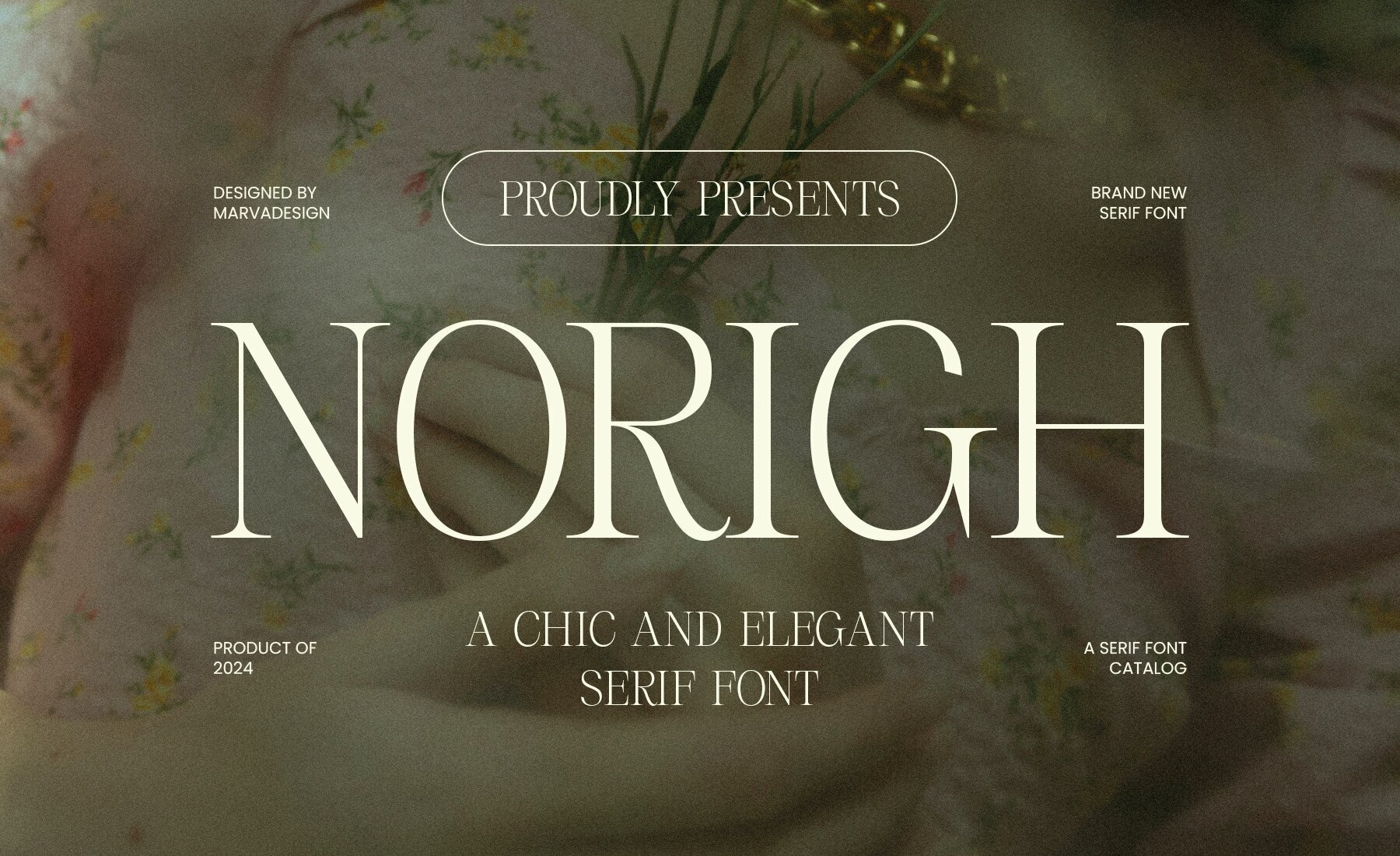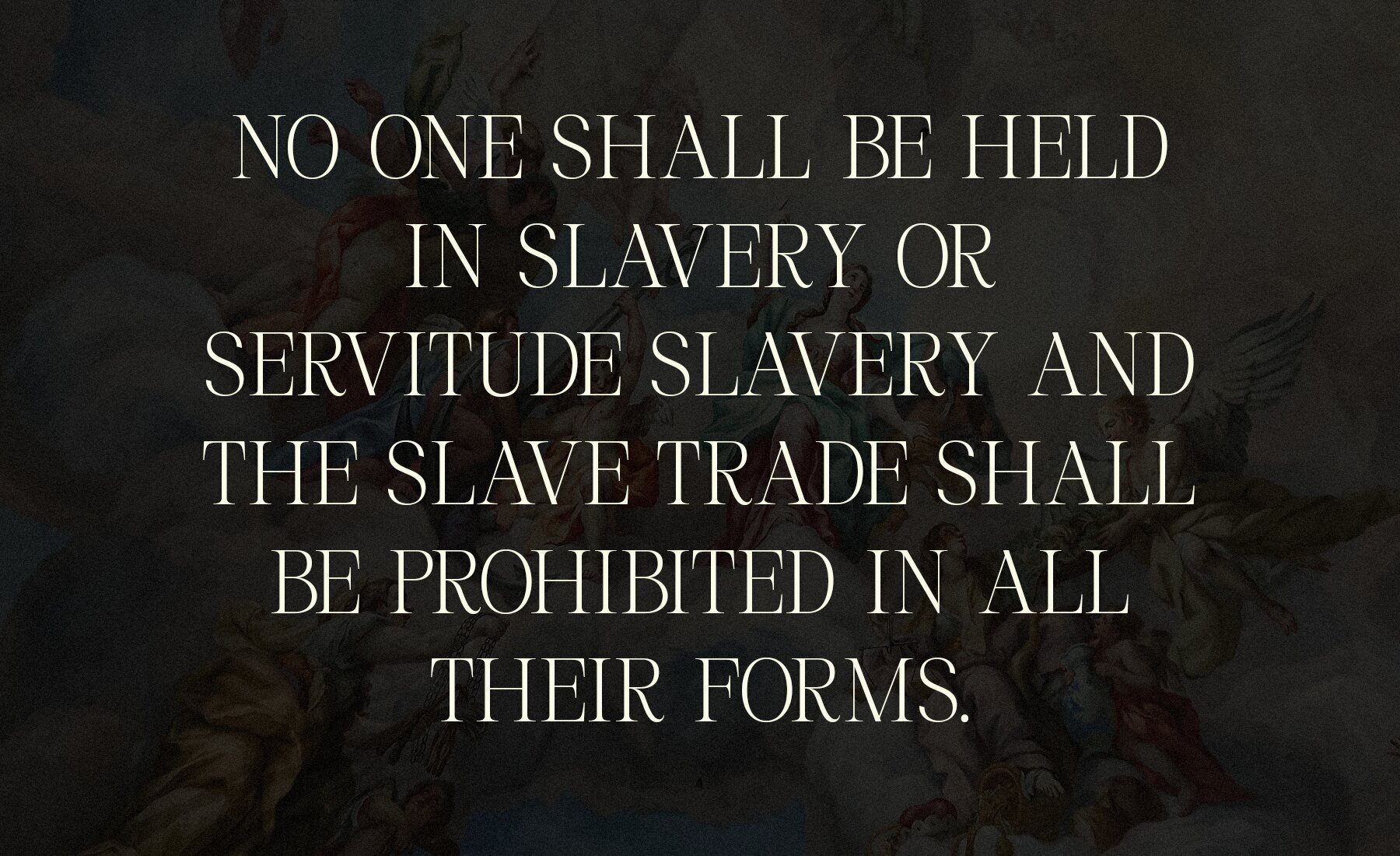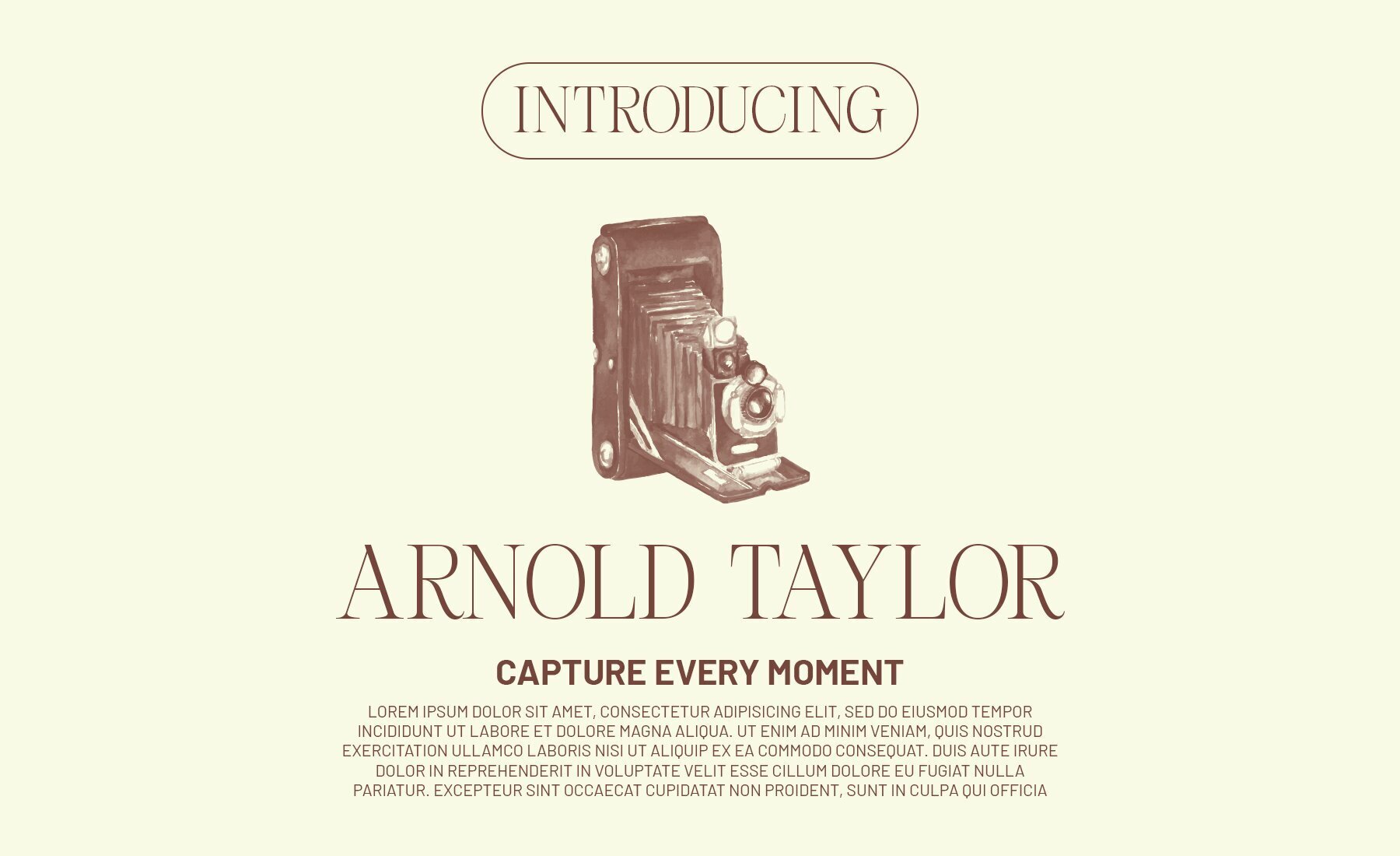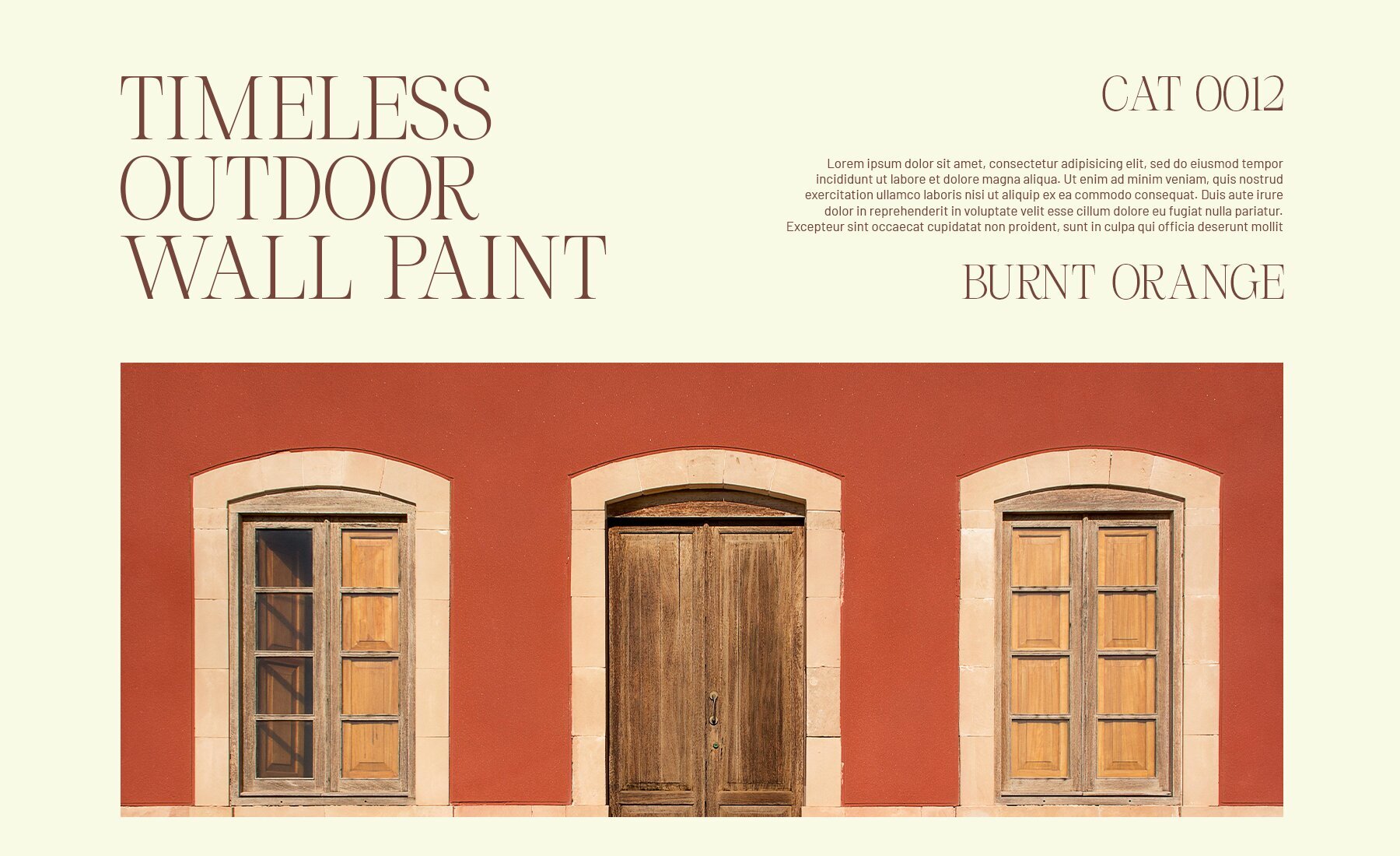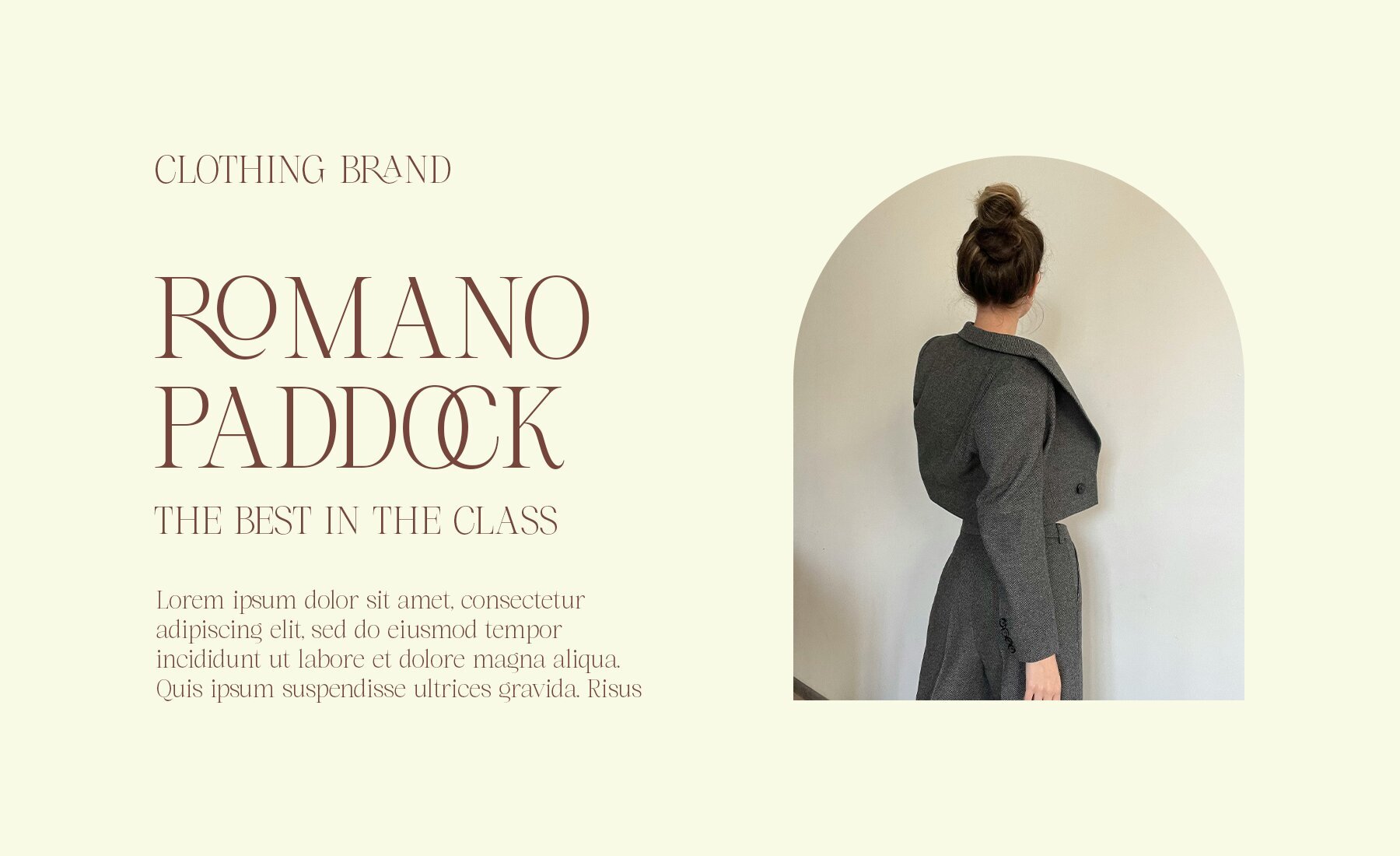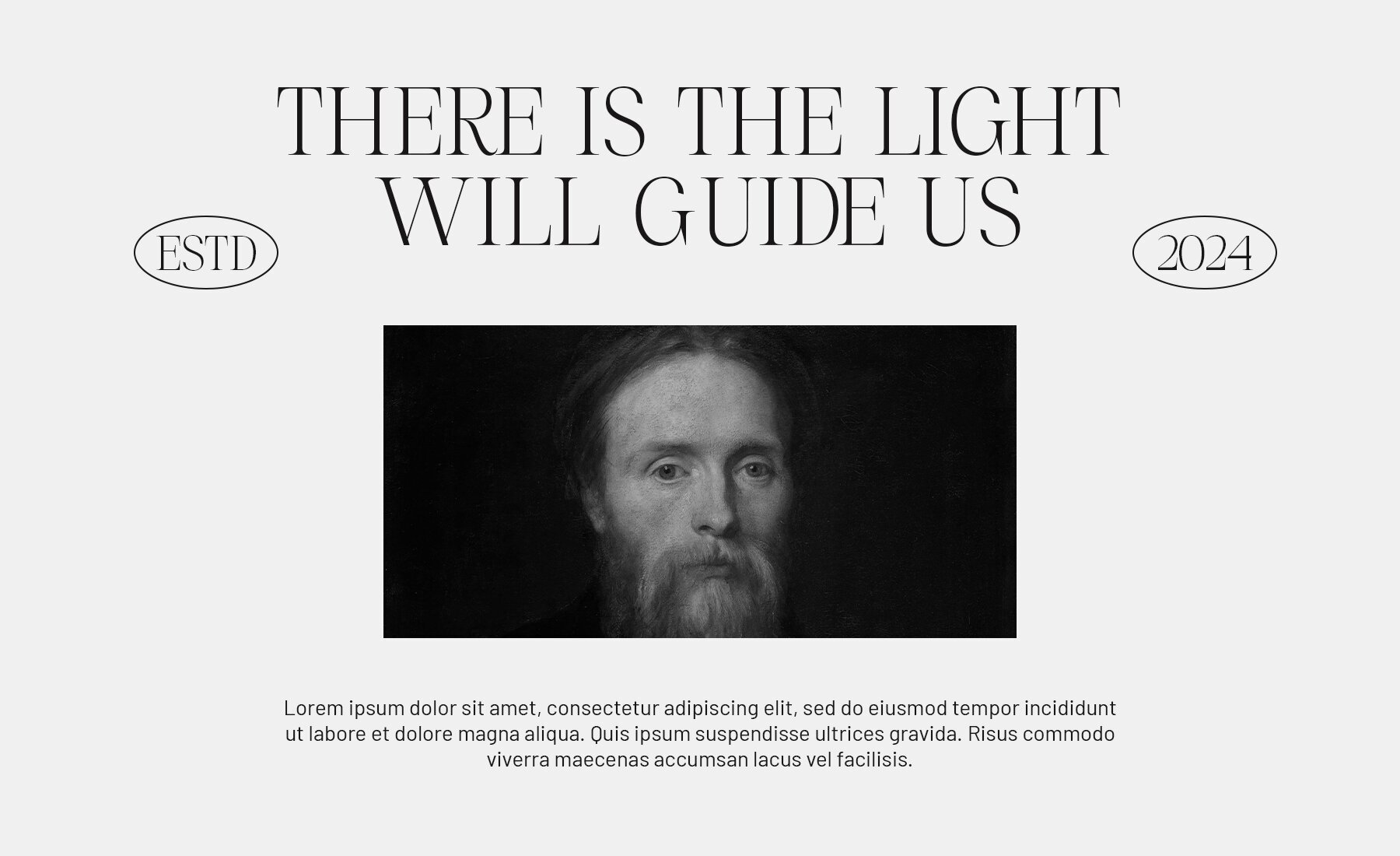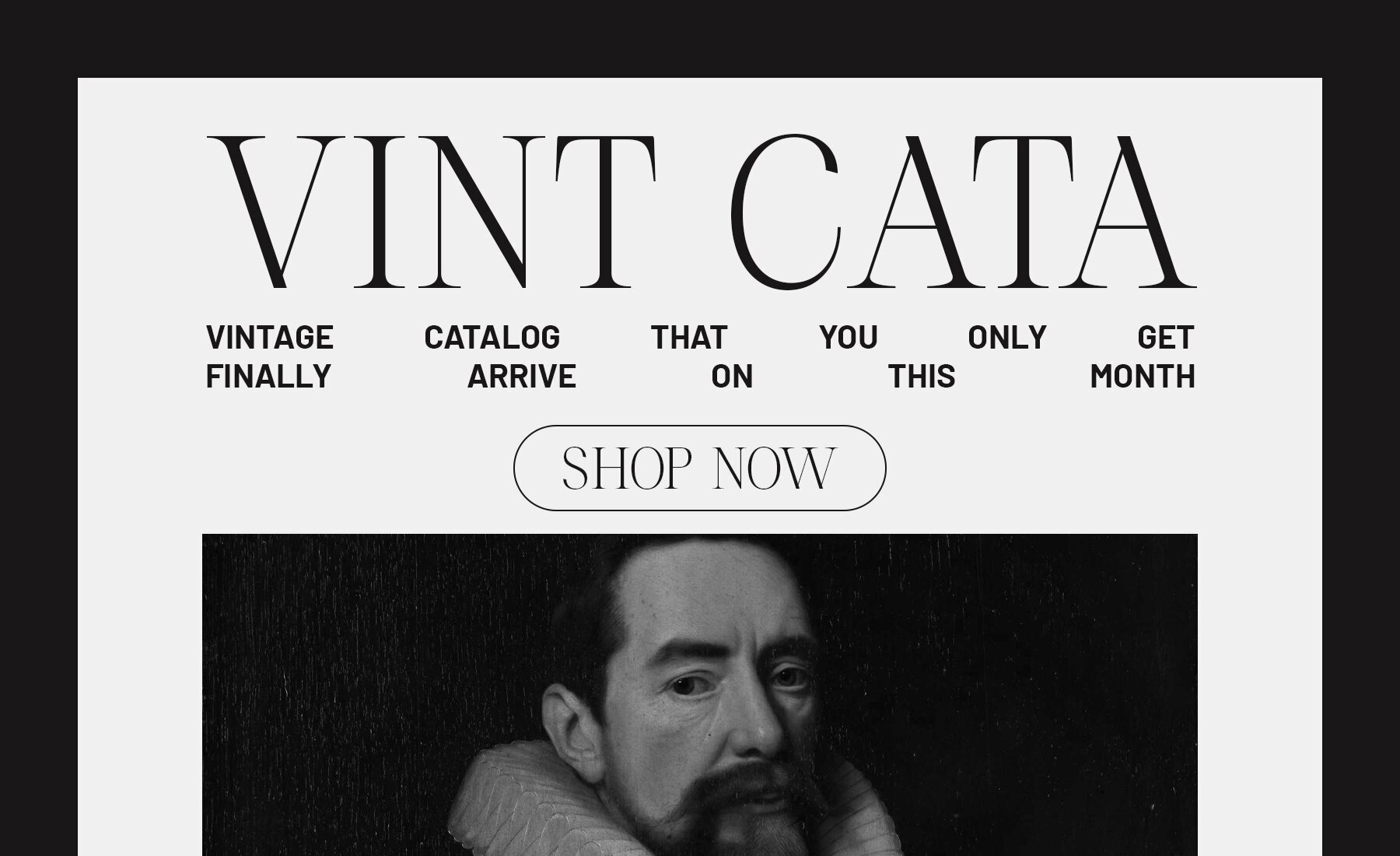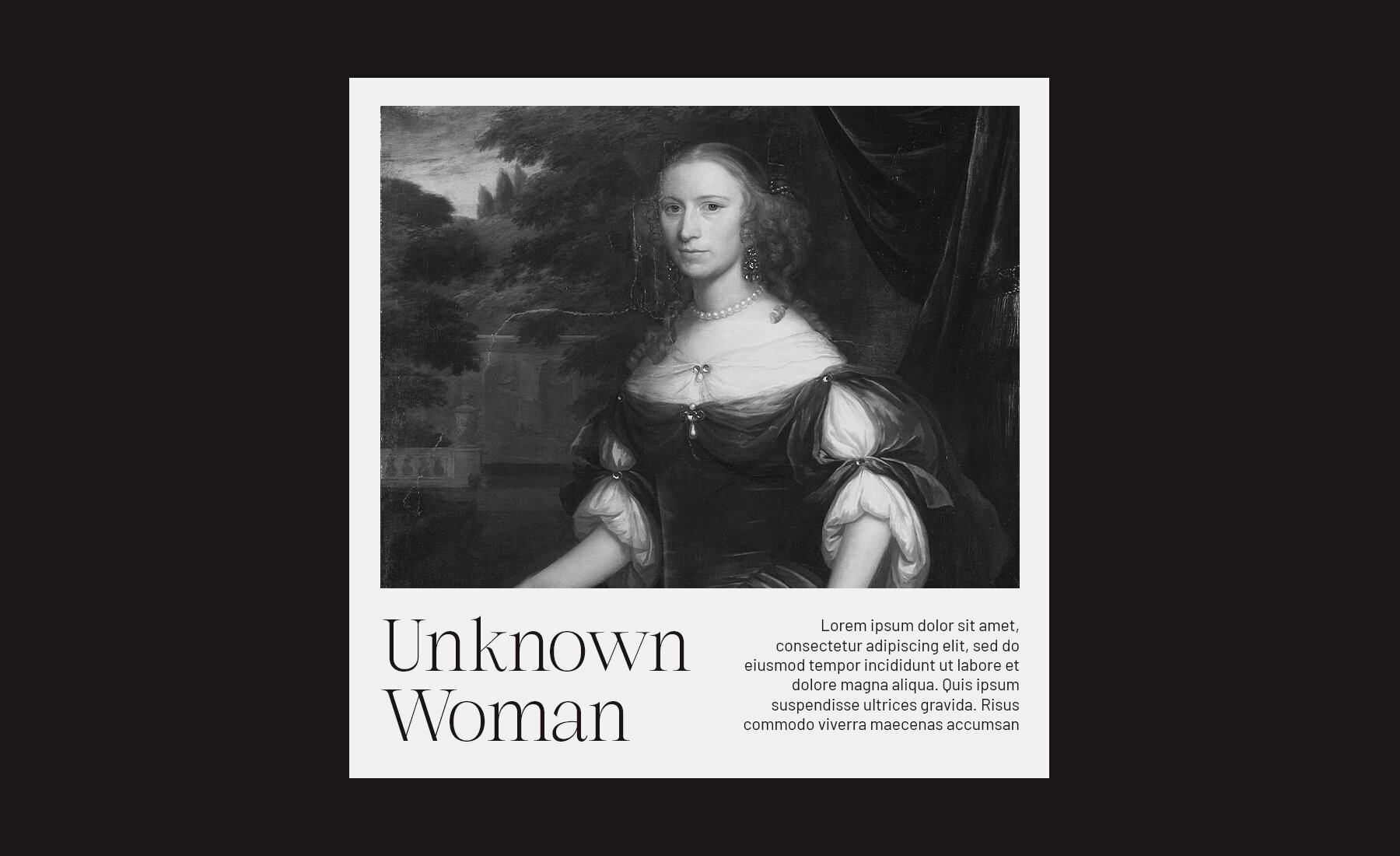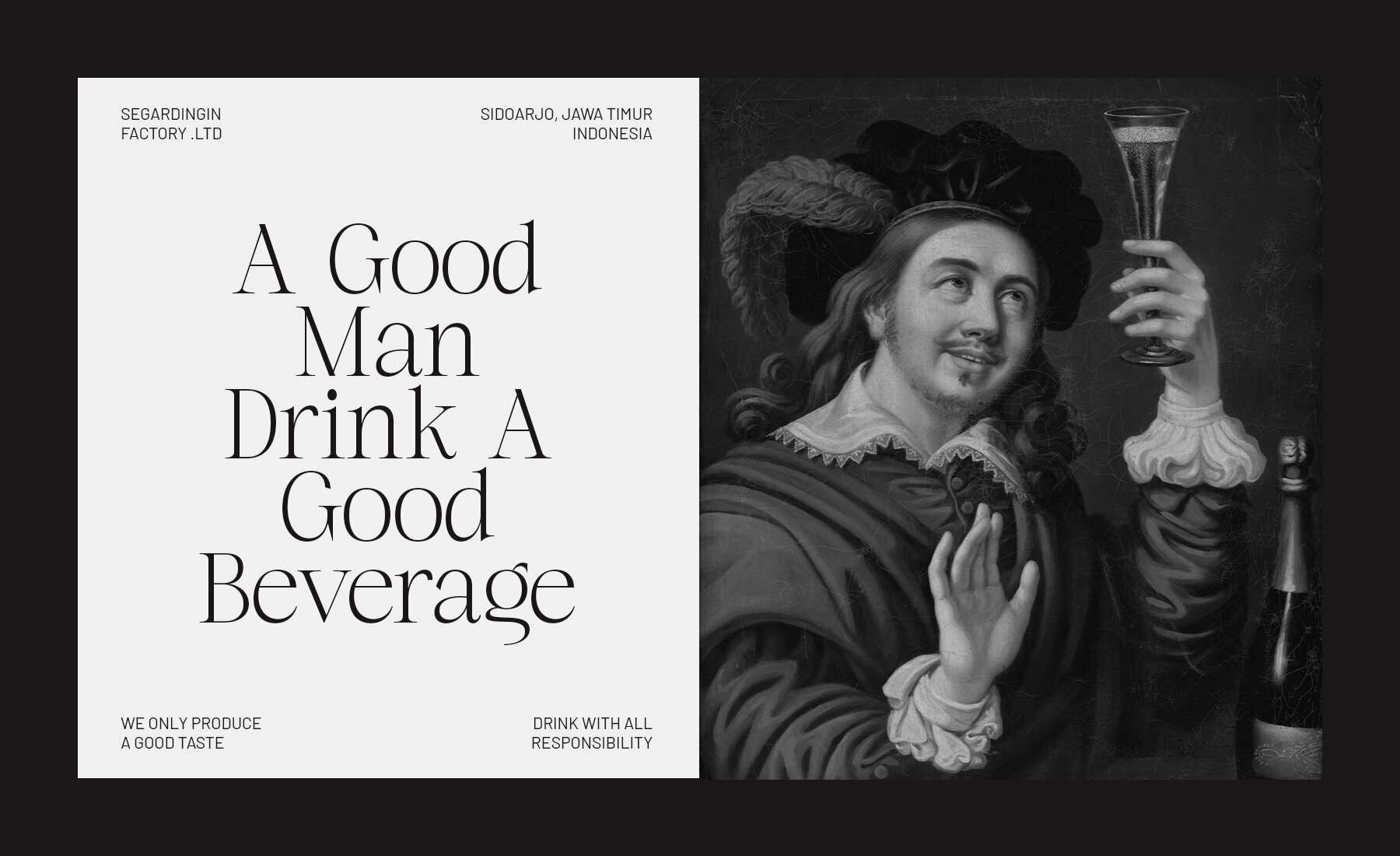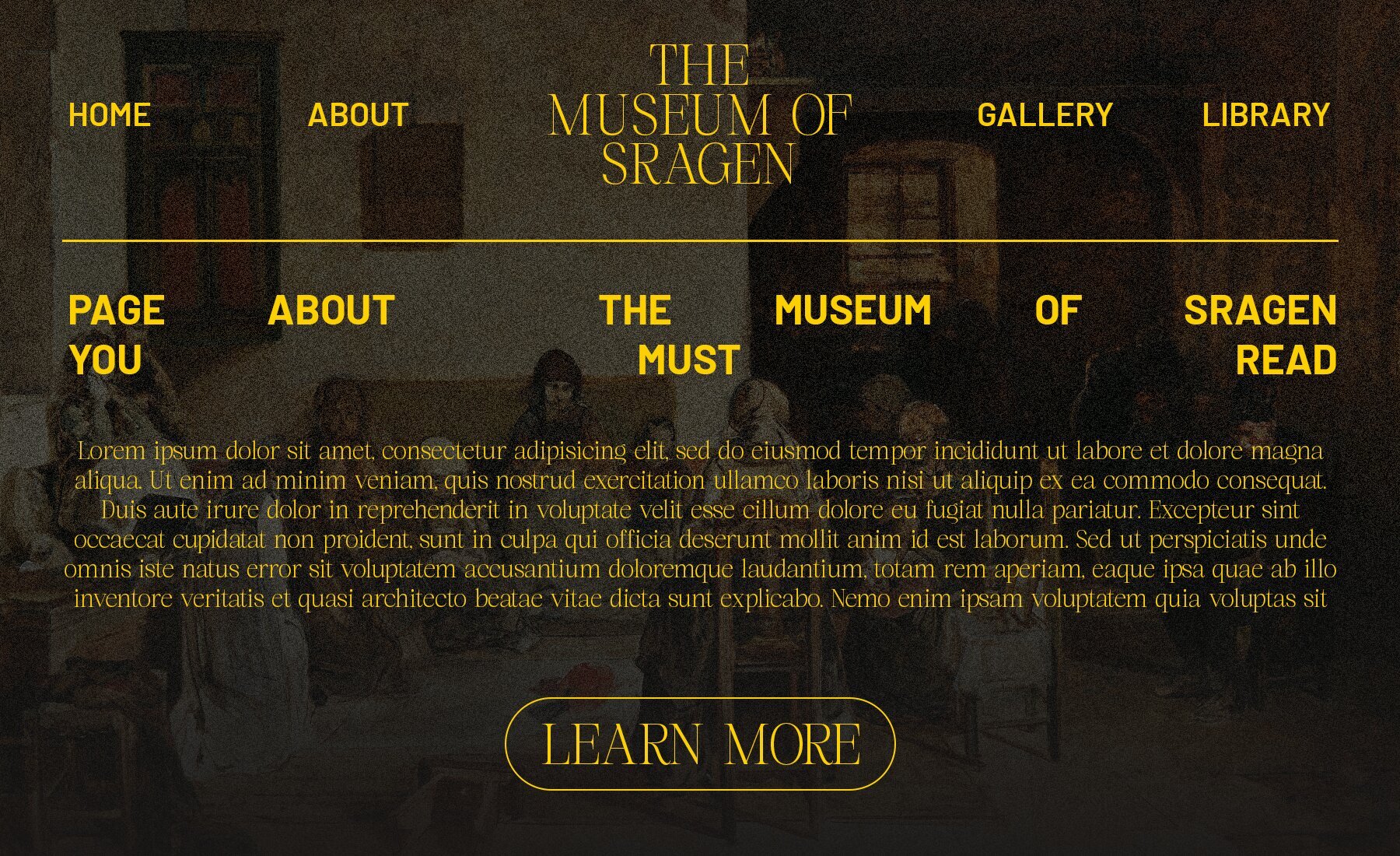
Norigh Font
Norigh Regular
Norigh is an elegant serif typeface that combines luxury with minimalist sophistication. Crafted with refined, clean lines, it exudes a polished appearance that balances grace with subtlety. Norigh's touch of modernity makes it an excellent choice for high-end branding, editorial design, and any creative project where elegance is essential.
This typeface includes a selection of carefully crafted ligatures that offer seamless character transitions. These ligatures enrich the typography, adding a unique and tasteful flair that complements its minimalist aesthetic. Norigh's versatile design and understated elegance make it a standout option for designers seeking to create sophisticated and distinctive projects.